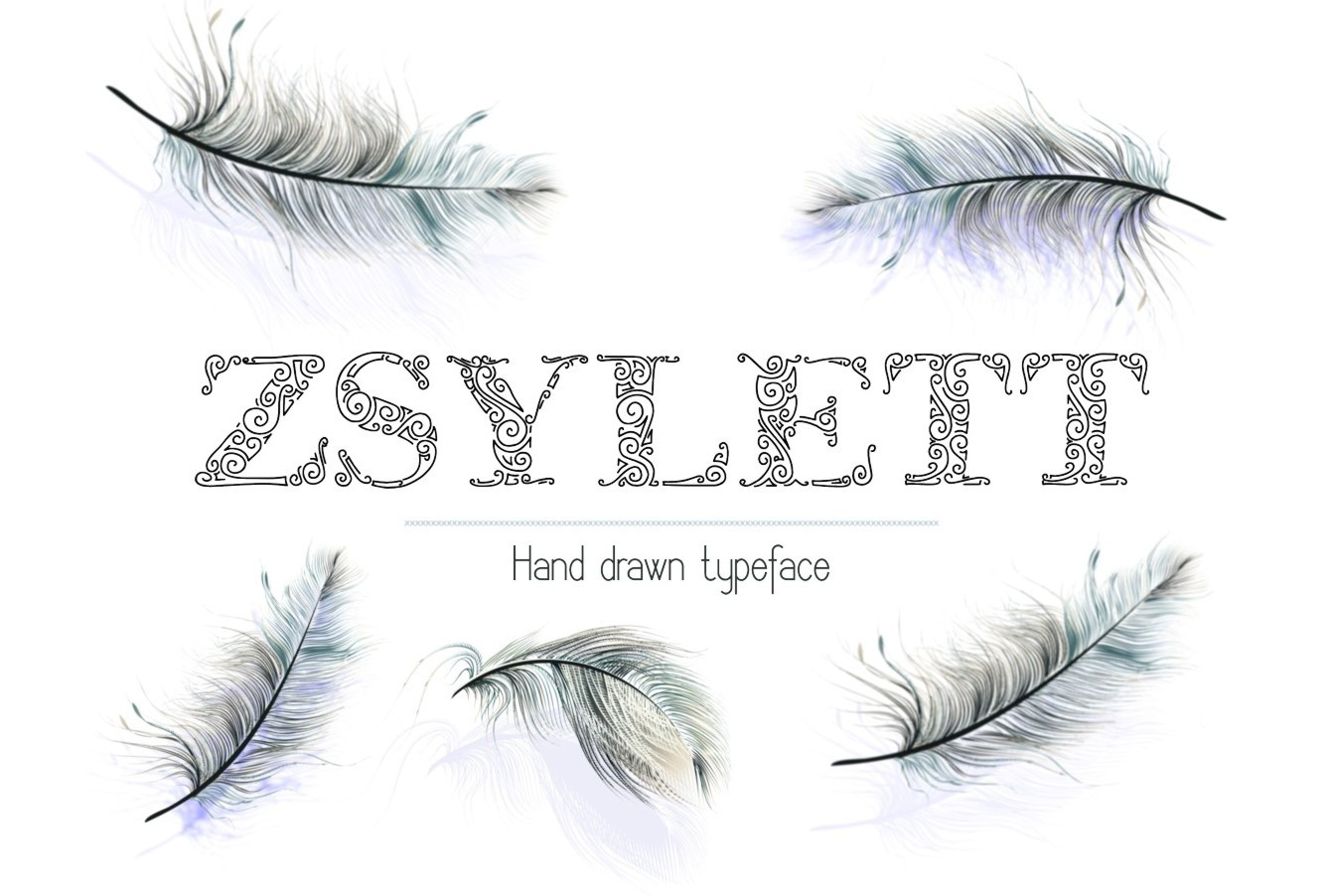
Zsylett Font Duo
Zsylett is a carefully drawn font duo. It was drawn by hand on a digital tablet in two versions (ZsylettPro and ZsylettProContour, both TTF and OTF format) Zsylett is great for branding, logos, titling, signage, poster, flyers or t-shirts design, headlines and more!